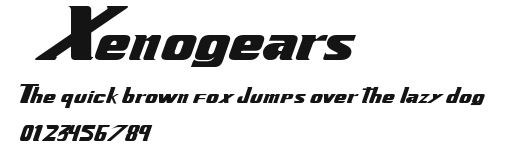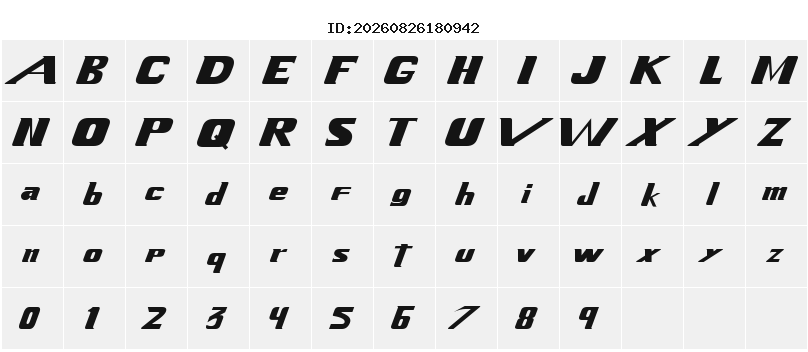
Xenogears Preview
• Font Name: Xenogears
• Font ID: Xenogears
• Full Font Name: Xenogears
• Version: Versão 1.0
• PostScript Name: Xenogears
• Character Count: 204
• Designer: Biffe
About Xenogears.ttf
Xenogears.ttf is a modern, elegant sans-serif font designed for ultimate readability and visual harmony. Perfect for branding, headlines, web design, and print materials.